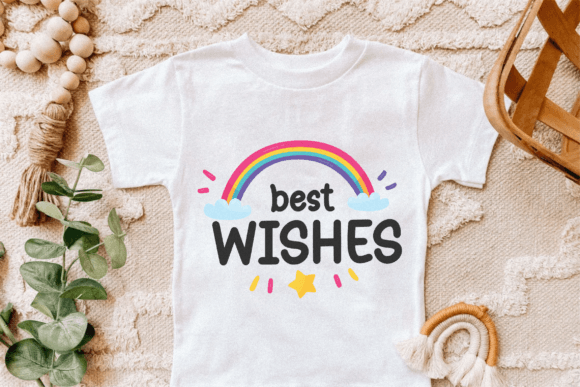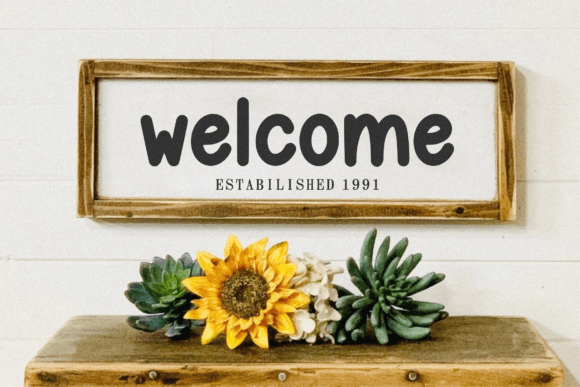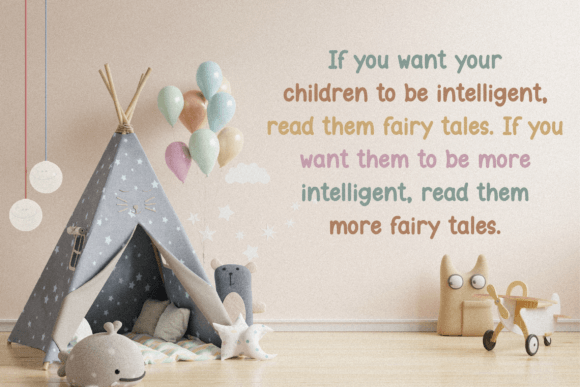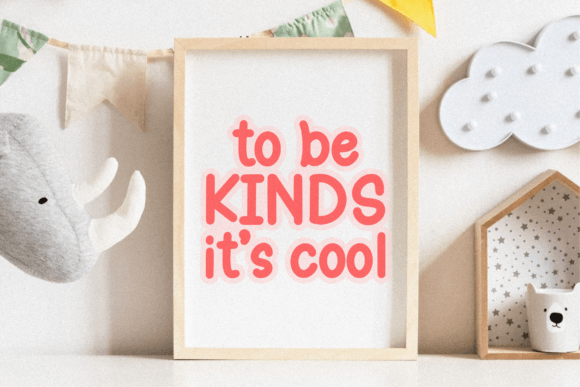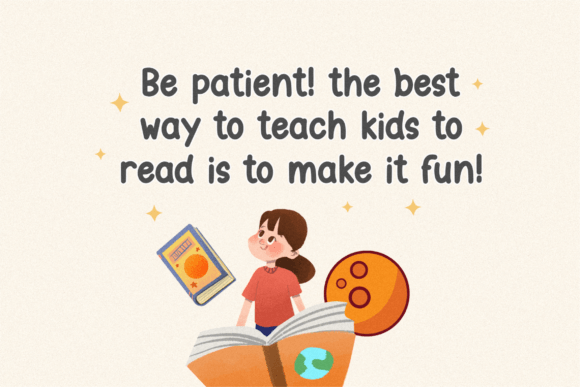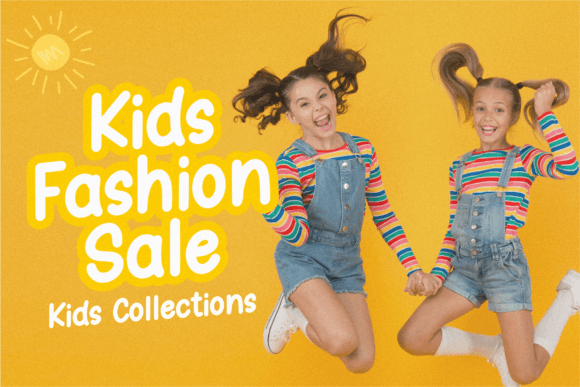
Introducing Doingwise Font: The Fun Handwritten Font for Creative Projects
Are you a designer, crafty person, or simply someone who loves to add a personal touch to their projects? Look no further than the Doingwise Font, a fun and playful handwritten font that’s perfect for a wide range of creative endeavors. In this article, we’ll dive into the world of Doingwise, exploring its features, uses, and benefits, and why it’s a must-have for anyone looking to add a touch of personality to their work.
What is Doingwise Font?
Doingwise is a beautifully crafted handwritten font that’s designed to bring a sense of fun and playfulness to your projects. With its unique and quirky style, it’s perfect for adding a personal touch to product packaging, branding projects, magazines, social media, weddings, and more. Whether you’re a professional designer or a crafty hobbyist, Doingwise is sure to inspire your creativity and help you express yourself in a way that’s both stylish and effective.
Features of Doingwise Font
So, what makes Doingwise Font so special? Here are just a few of its key features:
- Handwritten style: Doingwise has a beautifully handwritten style that’s both playful and elegant.
- Unique character set: The font includes a wide range of characters, including uppercase and lowercase letters, numbers, and punctuation marks.
- Easy to read: Despite its playful style, Doingwise is easy to read, making it perfect for use in a wide range of projects.
- Versatile: Doingwise is versatile enough to be used in a wide range of projects, from product packaging to social media graphics.
Uses for Doingwise Font
So, what can you use Doingwise Font for? The possibilities are endless, but here are a few ideas to get you started:
- Product packaging: Add a personal touch to your product packaging with Doingwise’s playful and eye-catching style.
- Branding projects: Use Doingwise to create a unique and memorable brand identity that sets you apart from the competition.
- Magazines and publications: Add a touch of personality to your magazine or publication with Doingwise’s elegant and refined style.
- Social media graphics: Use Doingwise to create eye-catching social media graphics that are sure to grab attention.
- Weddings and events: Add a touch of whimsy and romance to your wedding or event stationery with Doingwise’s beautiful handwritten style.
Benefits of Using Doingwise Font
So, why should you choose Doingwise Font for your next project? Here are just a few benefits of using this amazing font:
- Adds personality: Doingwise adds a touch of personality and whimsy to your projects, making them stand out from the crowd.
- High-quality design: Doingwise is designed to high standards, ensuring that your projects look professional and polished.
- Inspires creativity: Doingwise is sure to inspire your creativity and help you come up with new and innovative ideas for your projects.
In conclusion, Doingwise Font is a fun and playful handwritten font that’s perfect for designers, crafters, and anyone looking to add a touch of personality to their projects. With its unique style, versatile uses, and numerous benefits, it’s a must-have for anyone looking to take their creative projects to the next level. So why wait? Download Doingwise Font today and start adding a touch of whimsy and personality to your work!